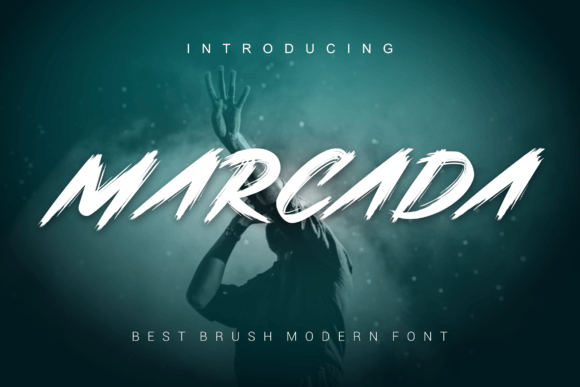
Unleash the Power of Bold Expression with Marcada: A Font Designed to Make a Statement
Journey into the world of Marcada, a display font that exudes boldness and authenticity. Crafted by the visionary designer kalingga.albert, this font is an artistic masterpiece that commands attention in any design project. Whether it's logo creation, t-shirt printing, or the dynamic realm of esports, Marcada rises to the occasion, leaving an indelible mark.
Beyond its aesthetic appeal, Marcada possesses a versatility that defies boundaries. Its robust structure and captivating curves dance harmoniously, creating a visual symphony that captivates audiences across a wide spectrum of contexts. Unleash your creativity and let Marcada elevate your designs to new heights.
Step into the spotlight with Marcada, a font that embodies strength and individuality. Let your words carry the weight of conviction as they dance across the page, demanding attention. Marcada is a beacon of confidence, inspiring you to make a bold statement with every design. Its ability to command attention makes it the perfect choice for those seeking to leave a lasting impression.
Embrace the artistry of Marcada, a font that weaves together boldness and elegance. Its striking presence ensures that your designs will resonate with audiences, leaving a lasting impact that lingers in their minds long after they encounter your creations. Let Marcada be the cornerstone of your visual storytelling, propelling your ideas into the realm of the unforgettable.